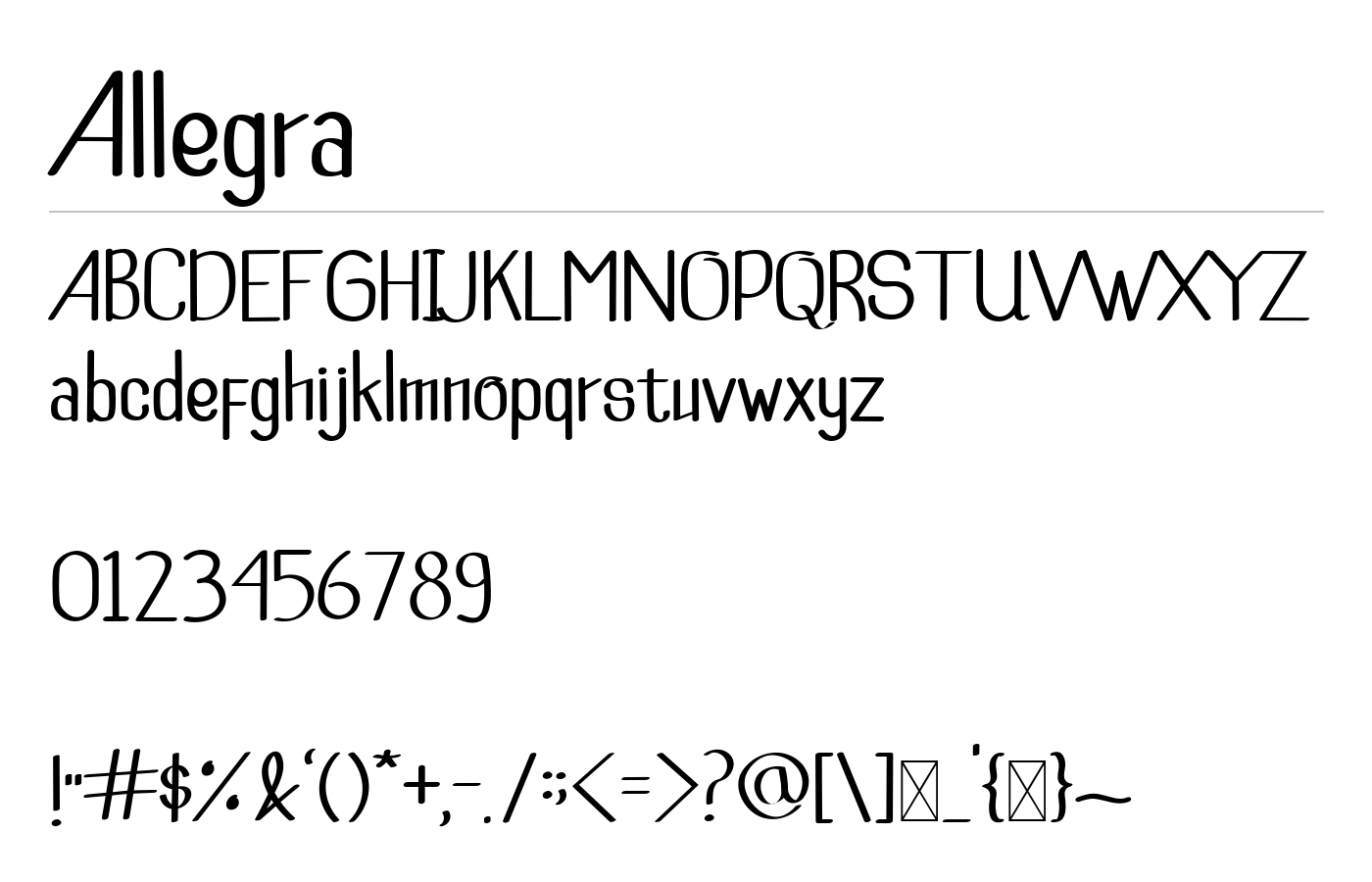
Allegra is a narrow, whimsical sans serif font with a tall x-height and gently rounded strokes that lend it a playful yet refined character. Its unique letterforms, such as the single-story ‘a’ and quirky terminal details, make it ideal for creative branding, eye-catching headlines, and stylish editorial projects. This font works well where a modern, friendly, and distinctive look is desired without sacrificing legibility.
Allegra Font
About Allegra Font